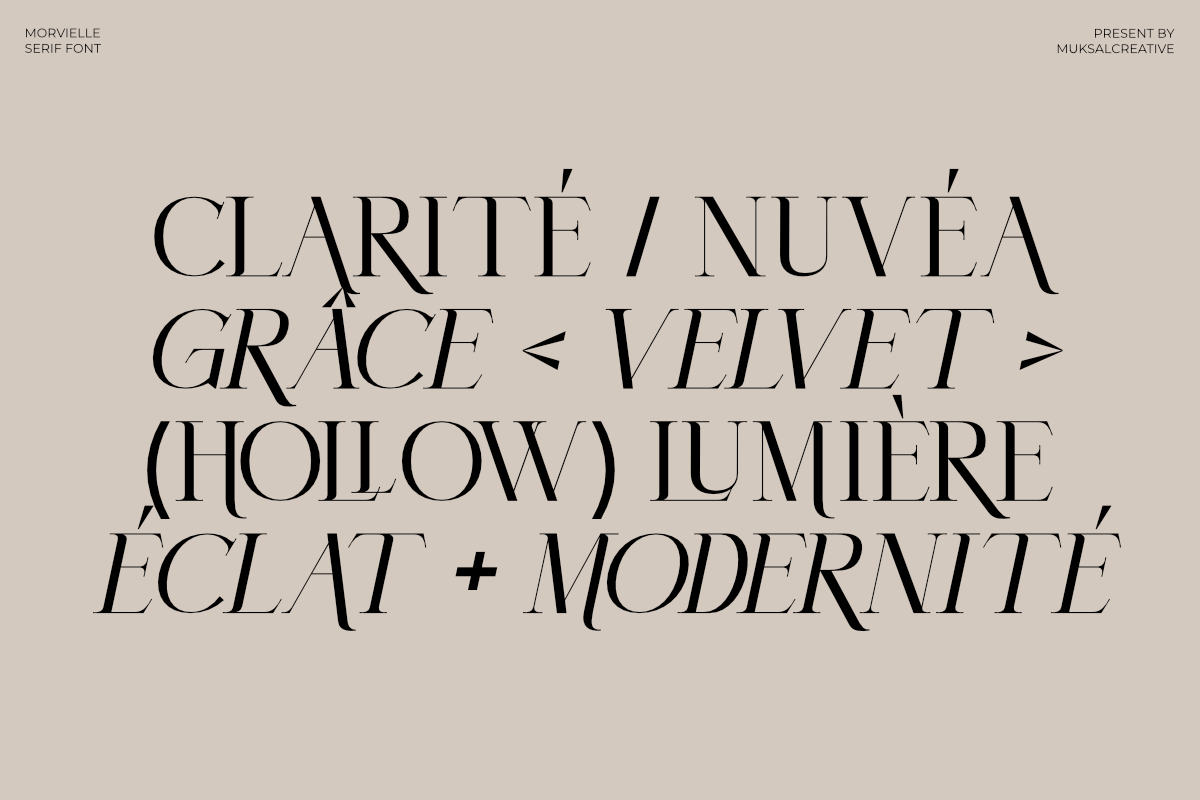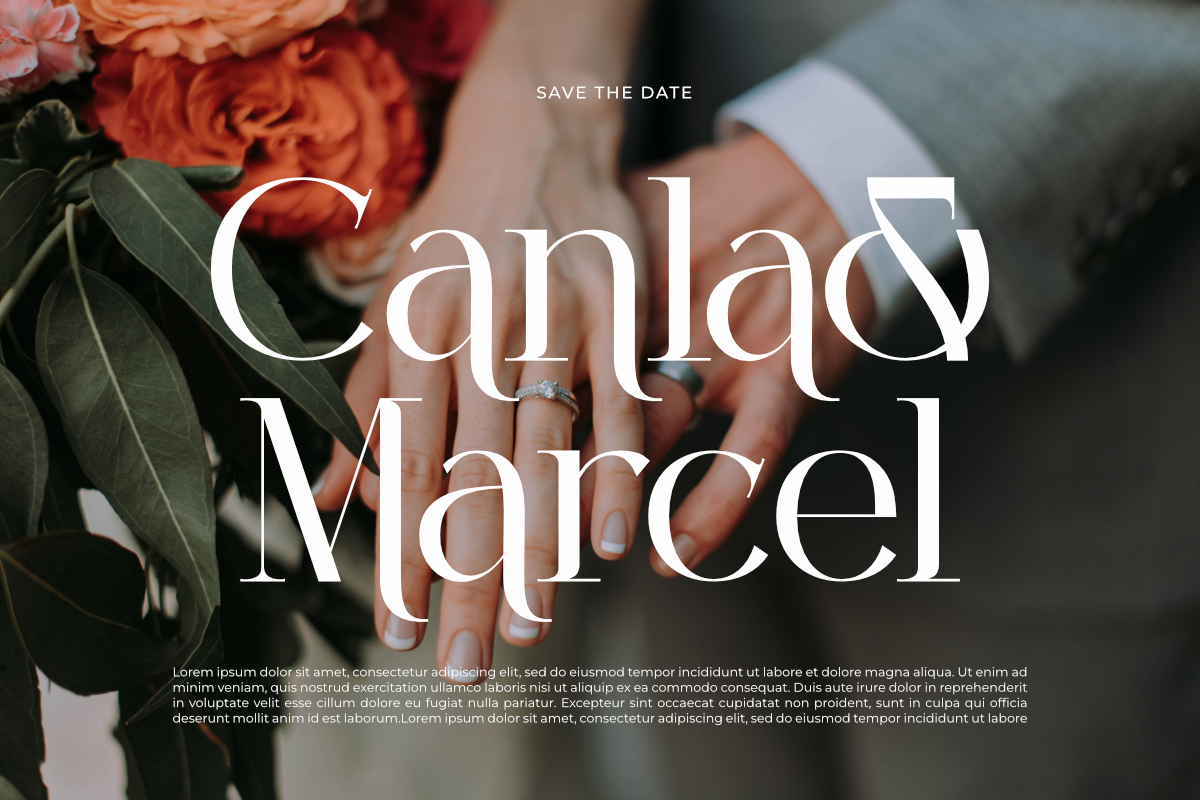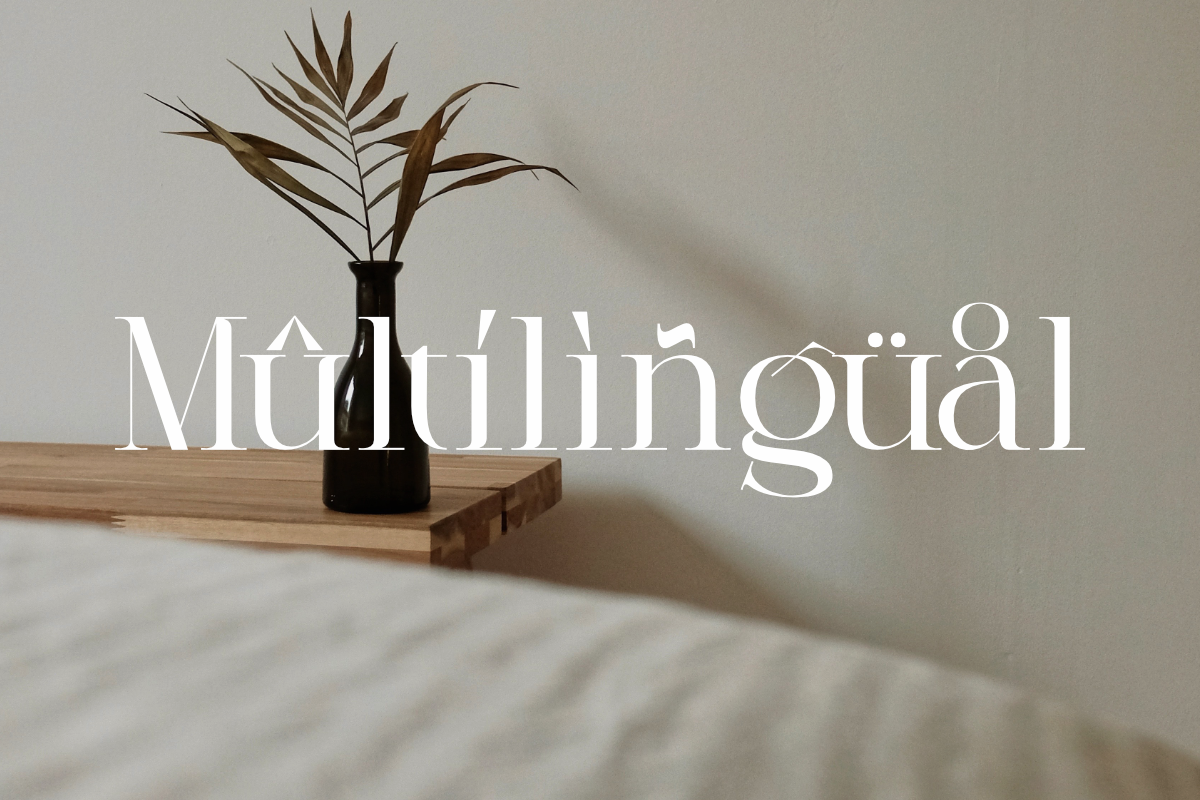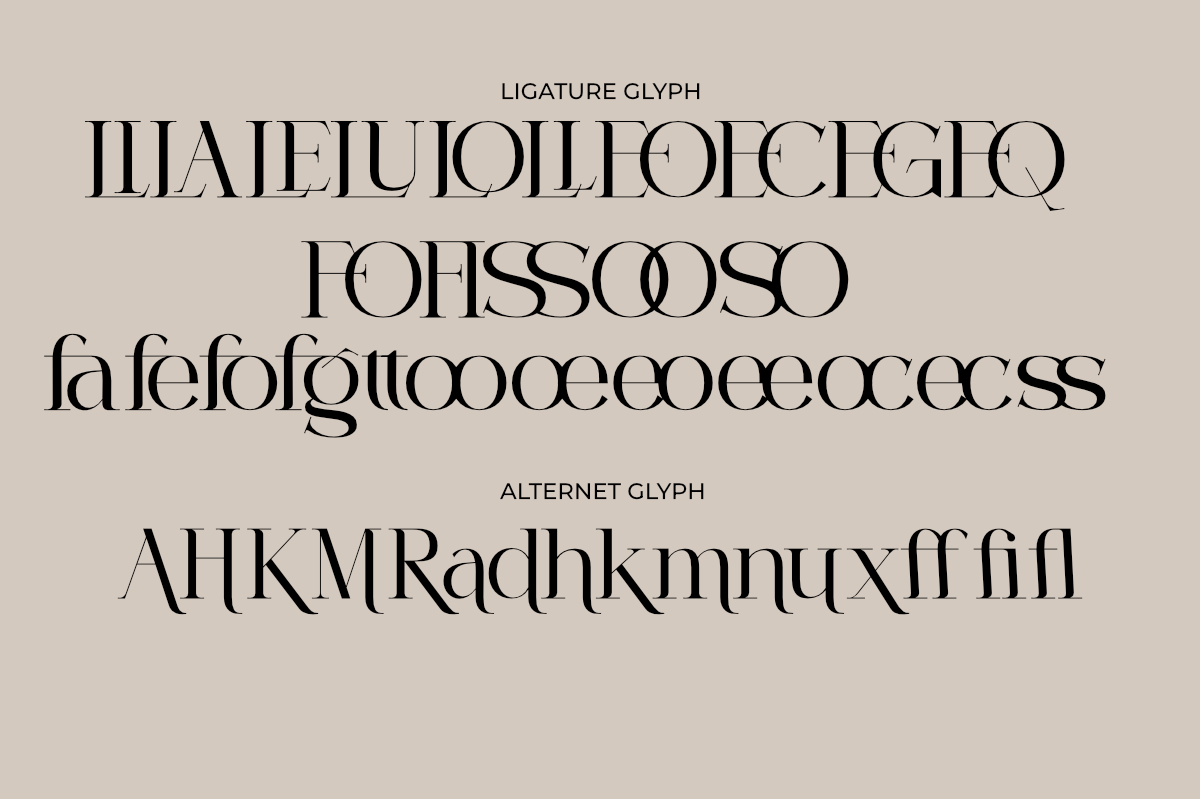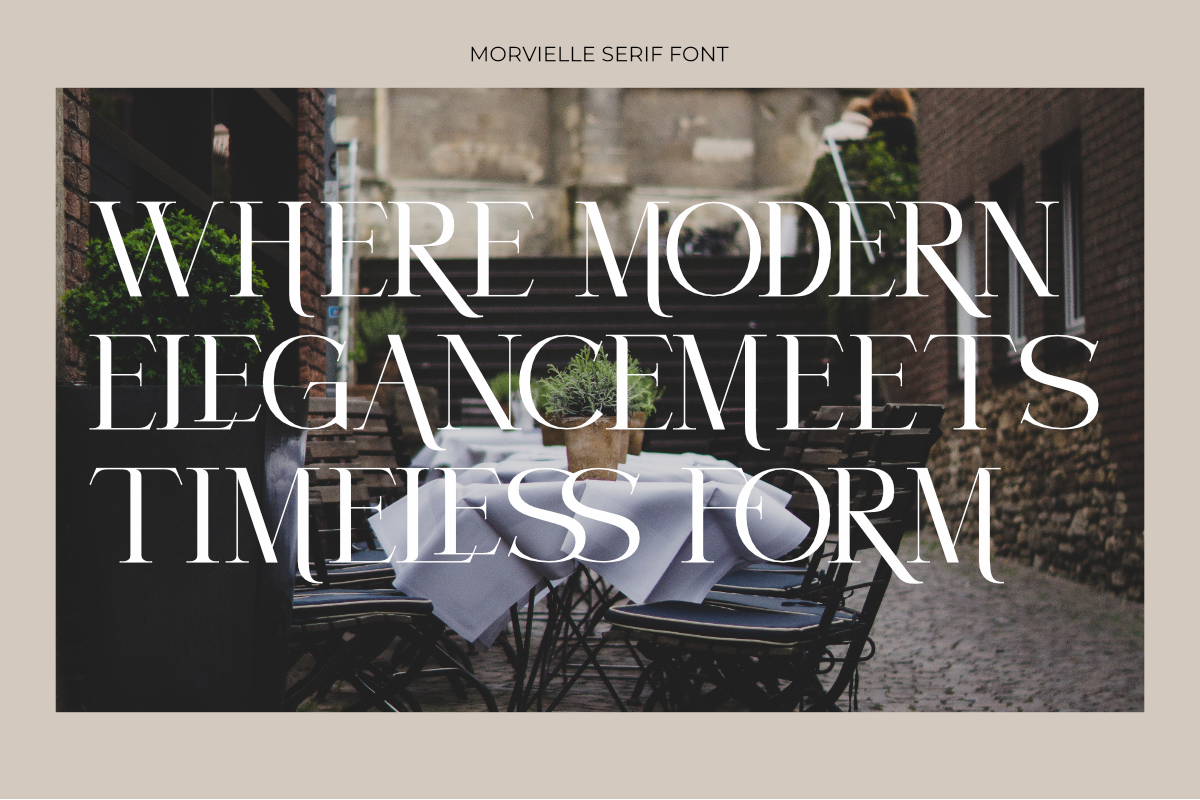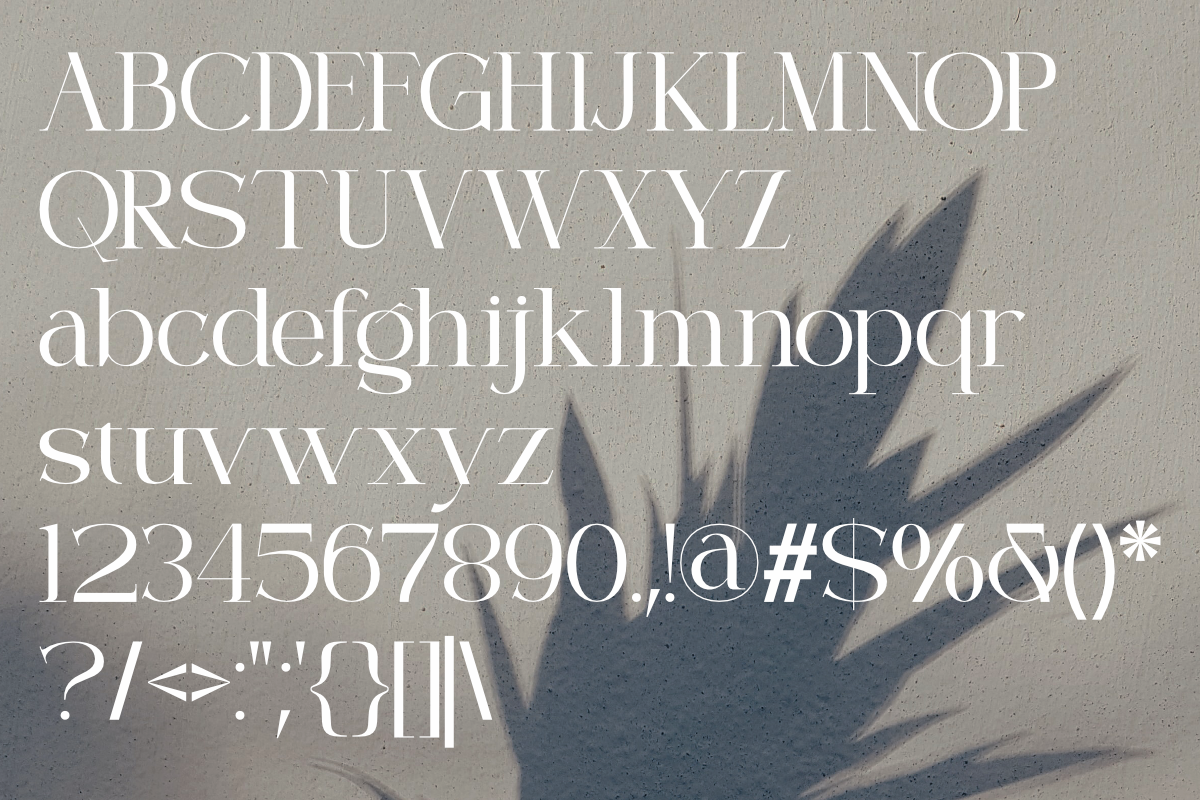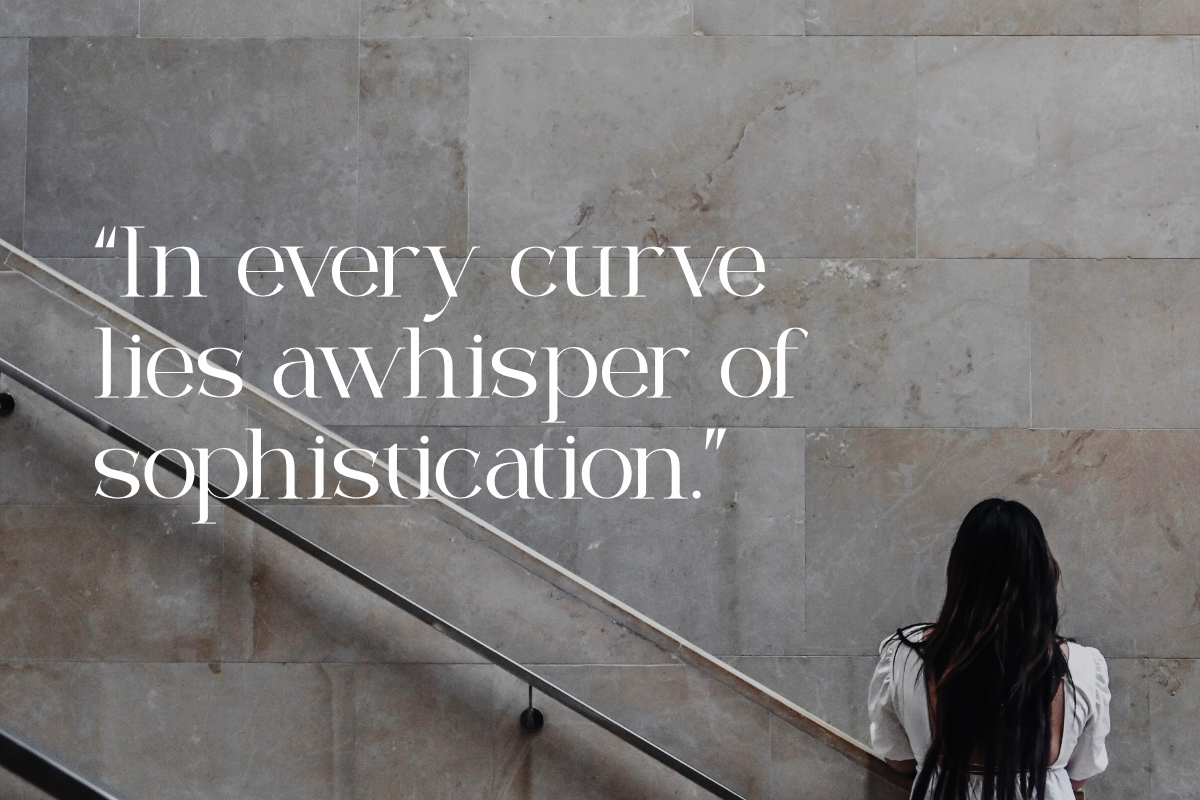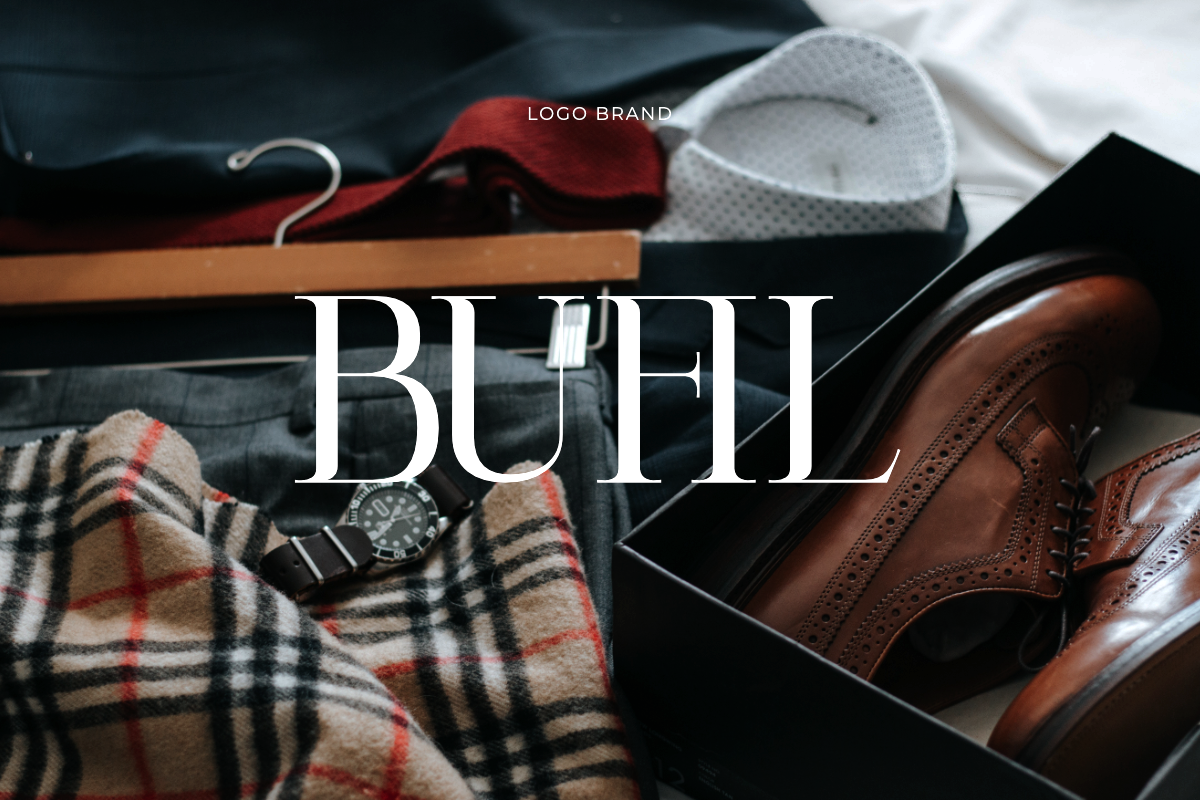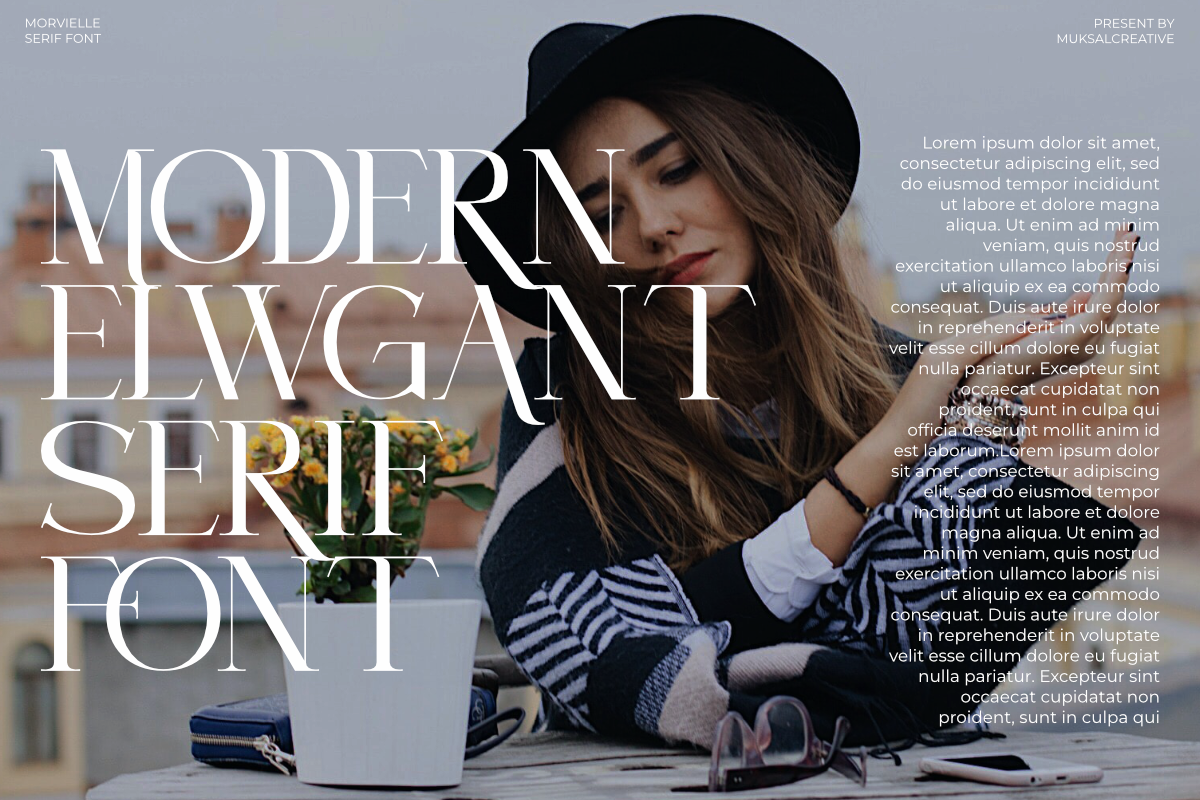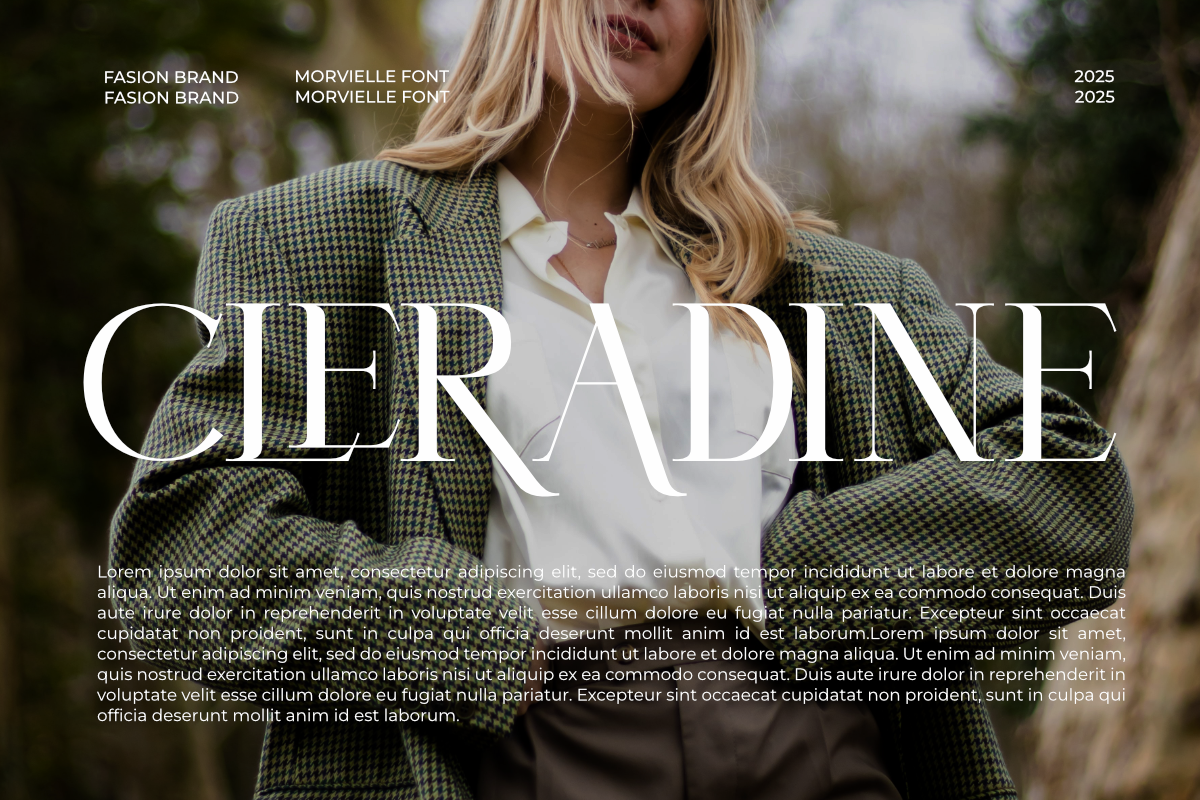
Morvielle — Modern Editorial Serif
Morvielle is a refined serif typeface that embodies modern elegance and timeless charm. Designed with graceful contrast and refined details, it’s perfect for creating sophisticated editorial layouts, high-end branding, and elegant packaging design.
This typeface comes in two styles: Regular and Italic, offering both strength and softness in one family. With stylish ligatures and alternates, Morvielle allows designers to craft beautiful headlines, fashion logos, and magazine titles with effortless distinction.
Each letter was shaped to express confidence and poise — making Morvielle the ideal choice for brands that value quiet luxury, beauty, and precision.
✨ Features 2 Styles: Regular & Italic Uppercase & Lowercase Numerals & Punctuation Ligatures & Alternates Multilingual Support Format: OTF, TTF, WOFF Elegant High-Contrast Serif